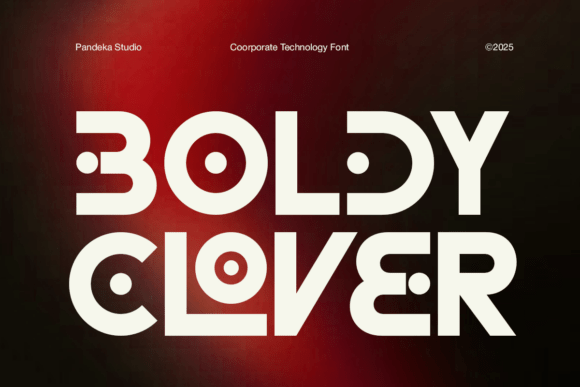
The Designer’s Dilemma: Finding the Perfect Font for Tech-Branding
I still remember the frustration of working on a tech-startup project, searching for the ideal font that conveyed innovation, intelligence, and digital confidence. My client wanted a bold, futuristic look that would make their brand stand out in the competitive tech industry. After hours of scouring through font libraries, I stumbled upon Boldy Clover – a modern technology font that checked all the boxes.
An Honest Review of Boldy Clover
- ✨ **Geometric letterforms**: Boldy Clover features bold geometric letterforms with clean edges, giving it a sharp, smart, and professional look.
- ✅ **Excellent readability**: Despite its bold design, the font maintains excellent readability, making it perfect for headlines, logos, and digital interfaces.
- 💻 **OpenType features**: With 17+ ligatures, Boldy Clover allows for smoother letter connections and refined typography details.
- 🤔 **Limited styles**: Boldy Clover currently only offers a single Regular style, which might limit its versatility for certain projects.
The Story Behind Boldy Clover
Boldy Clover was designed with the goal of creating a font that embodies the spirit of innovation and digital confidence. The design team drew inspiration from modern technology and futuristic design, crafting a font that is both bold and refined. The result is a font that is perfect for tech-forward branding, digital interfaces, and creative projects.
| Font Name | Boldy Clover Font |
| What is Boldy Clover designed for? | Boldy Clover is designed for tech-branding, fintech products, startup identities, apps, dashboards, presentations, UI/UX design, websites, posters, and corporate visuals. |
| Does Boldy Clover support OpenType features? | Yes, Boldy Clover includes OpenType features, such as ligatures, which can be accessed in compatible software. |
| Is Boldy Clover available in multiple styles? | Currently, Boldy Clover is available in a single Regular style. |